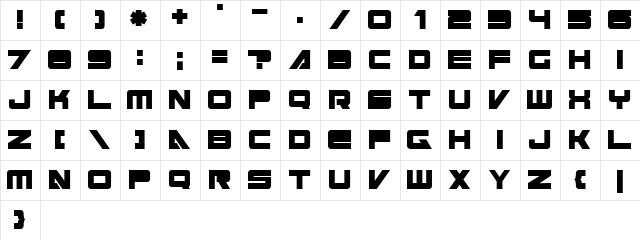
Cyberspace Regular
Design Context for Cyberspace Typeface
Cyberspace has a distinctly futuristic character, with geometric precision and clean angles that feel at home in technology, gaming, and sci-fi contexts.
Pro Tip: Use Cyberspace in combination with a neutral sans for body text. Let it define the brand voice in headlines while keeping reading comfortable elsewhere.